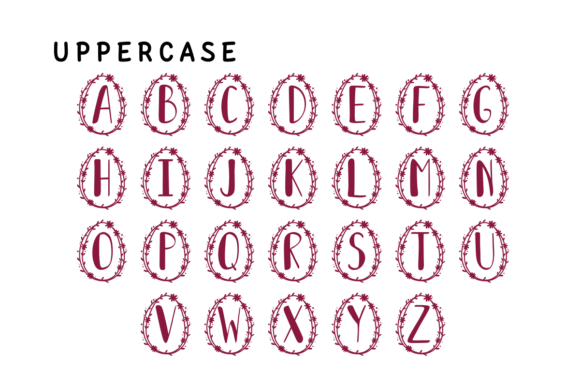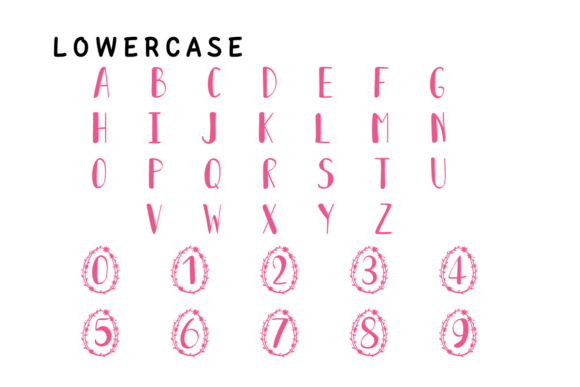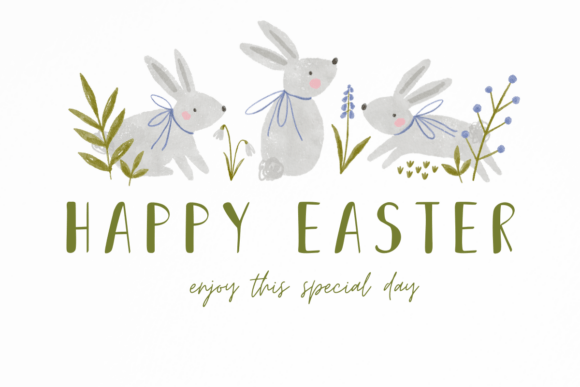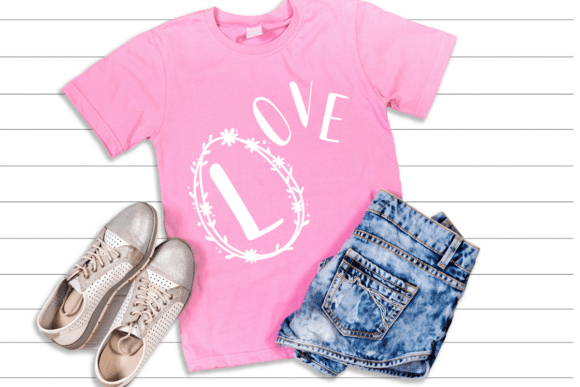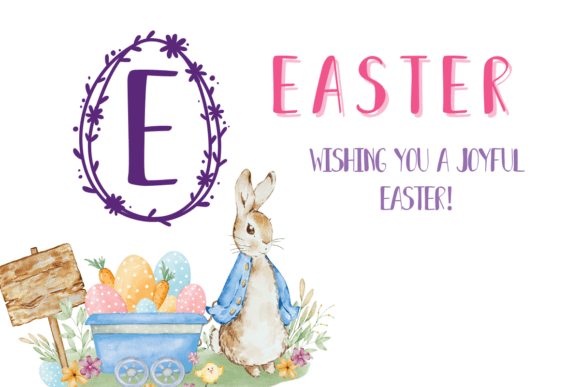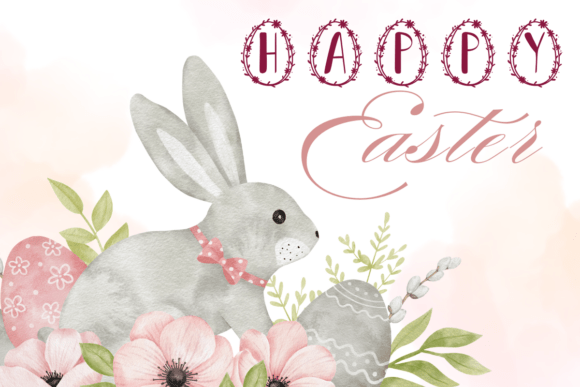
Introduction to Monogram Easter Font
As I sat at my desk, surrounded by colorful pens and scattered paper scraps, I couldn’t help but feel a sense of excitement and creativity. I was working on a new design project, and I wanted to add a touch of whimsy to my Easter-themed greeting card. That’s when I stumbled upon the Monogram Easter Font – a beautifully crafted, high-quality font that would elevate my design to the next level.
With the Monogram Easter Font, I was able to create a stunning, eye-catching design that perfectly captured the essence of the holiday. Its intricate details and elegant style made it the perfect addition to my project. And the best part? This versatile font can be used for so much more than just greeting cards – from banners and social media posts to mugs and stationery, the possibilities are endless.
Key Features of Monogram Easter Font
- High-quality, elegant design perfect for creative projects and Easter-themed artwork.
- Includes a transparent background option for easy customization and flexibility.
- Designed with a unique, intricate style that adds a touch of sophistication to any design project.
- Features a range of monogrammed Easter-themed characters and symbols, ideal for creating personalized Easter cards, invitations, and decorations.
Honest Review: Monogram Easter Font
I recently stumbled upon the Monogram Easter Font, and I must say it’s a delightful addition to any design project. The font’s playful and whimsical style is perfect for creating eye-catching graphics for Easter-themed events or social media posts.
- Perfect for Easter-themed events and social media posts
- High-quality and crisp lines
- Excellent for printing or using on transparent backgrounds
- Delightful addition to any creative project
What doesn’t work well: ⚠️ The font’s limited character set might be a drawback for some users. However, for most design projects, it shouldn’t be a significant issue.
Use the Monogram Easter Font in creative projects such as Easter cards, invitations, and decorations. You can also use it in graphic designs, logos, and branding materials.
The Monogram Easter Font is perfect for:
- Easter-themed designs
- Spring-inspired projects
- Wedding invitations and decorations
- Branding and logo designs
Alternatives to Monogram Easter Font
Floral Easter Script
Floral Easter Script is a beautiful, cursive font perfect for Easter-themed designs. It features intricate floral patterns and elegant lines, making it ideal for wedding invitations, greeting cards, and other creative projects. This font is available for free download and can be easily customized to fit your design needs. When to use: Easter-themed designs, wedding invitations, greeting cards. Comparison: Floral Easter Script is more intricate and ornate than Monogram Easter Font, making it better suited for formal designs.
Spring Fling Font
Spring Fling Font is a playful, handwritten font that captures the spirit of spring. It features bold lines and whimsical flourishes, making it perfect for social media graphics, posters, and other fun designs. This font is available for free download and can be easily customized to fit your design needs. When to use: Social media graphics, posters, fun designs. Comparison: Spring Fling Font is more playful and casual than Monogram Easter Font, making it better suited for informal designs.